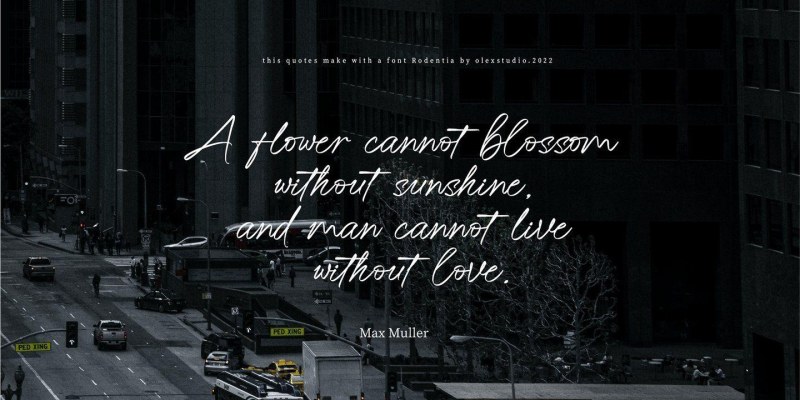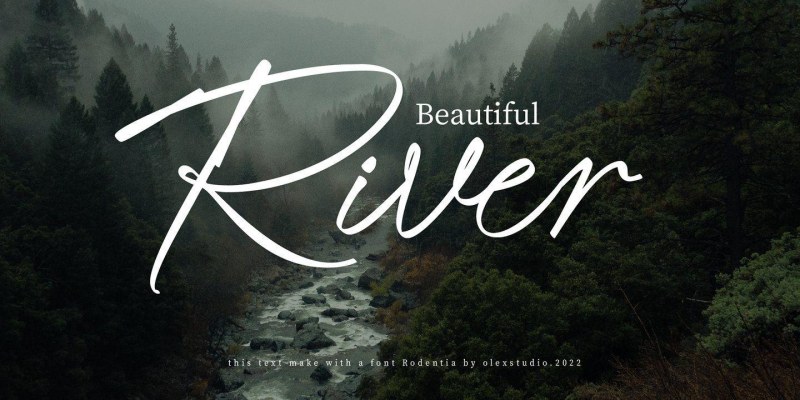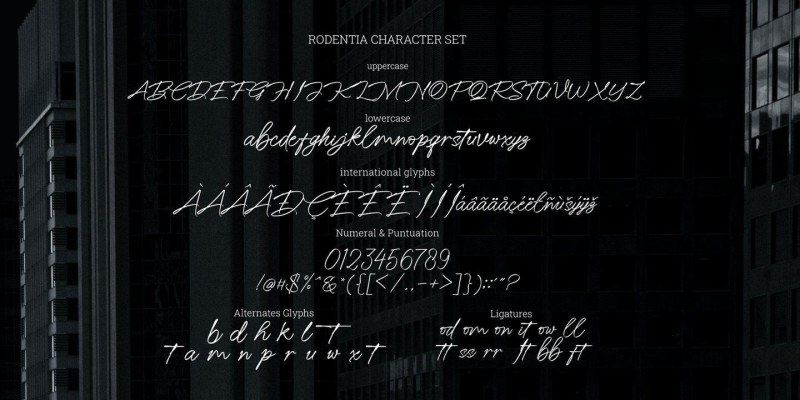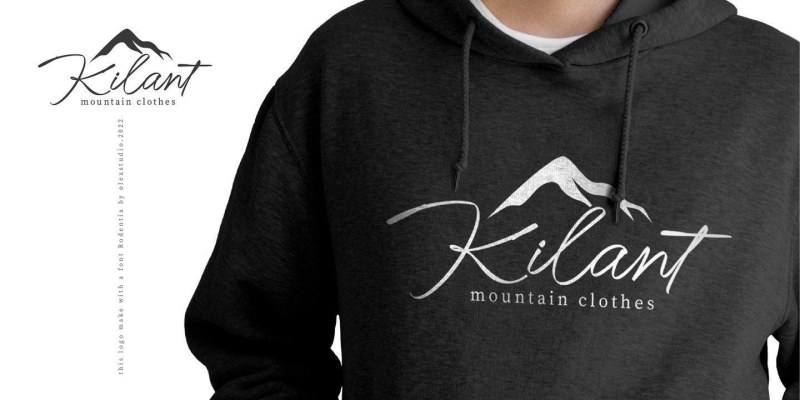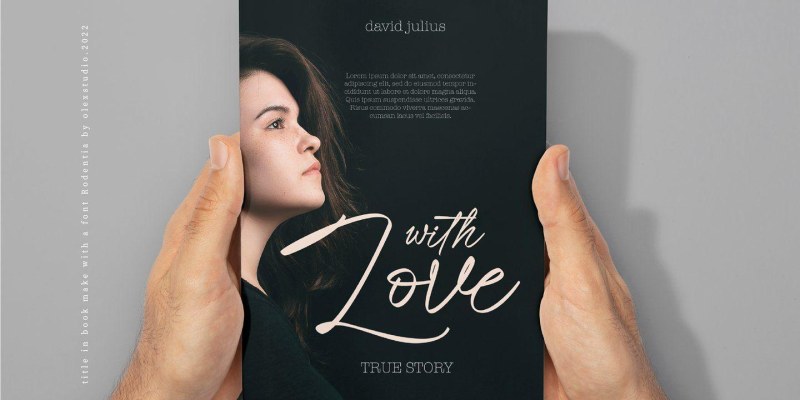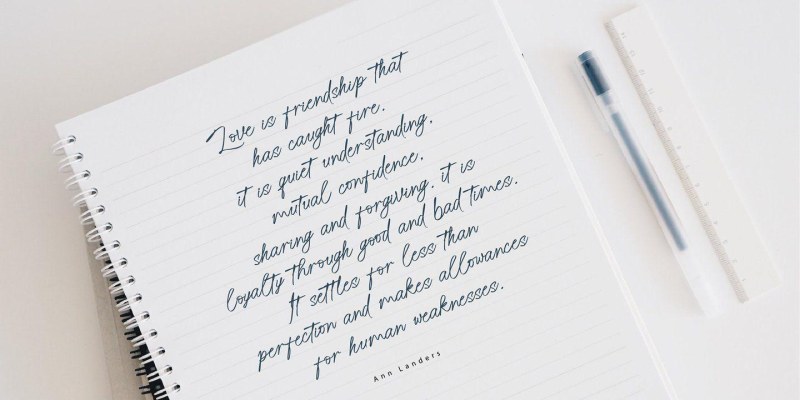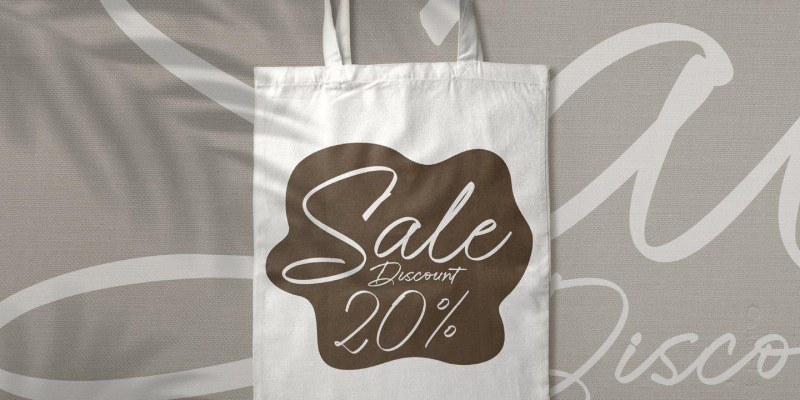
Rodentia Font
RODENTIA – Handwritten Brush Script Font will look gorgeous on all your designs, invitation, poster design, book design, branding materials, logo’s, and all project desi…
Character set · 222 glyphs
RODENTIA – Handwritten Brush Script Font will look gorgeous on all your designs, invitation, poster design, book design, branding materials, logo’s, and all project design other. RODENTIA – Handwritten Font contains standard characters, Lowercase, alternates, Uppercase, numbers, punctuation, ligatures and international glyphs.
Where Rodentia Font works best
Complete brand systems
With multiple weights, Rodentia Font can carry a whole identity — logo, headings, body copy and captions — consistently across print and web.
Websites & apps
Families let you set hierarchy with weight instead of switching typefaces, which keeps interfaces fast and coherent.
Print collateral
Brochures, catalogues and business cards benefit from a family that covers display and text sizes.
What is Rodentia Font good for?
Rodentia Font is a Font Family typeface tagged Branding, Brush, Font Family, Handwritten. It works well for headlines, logos, posters, social media graphics and branding projects that need a distinctive font family look.